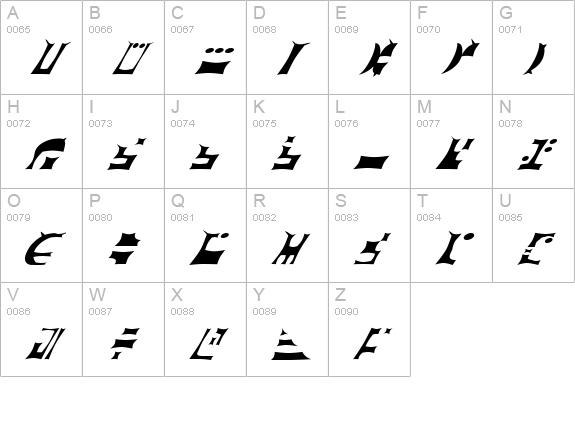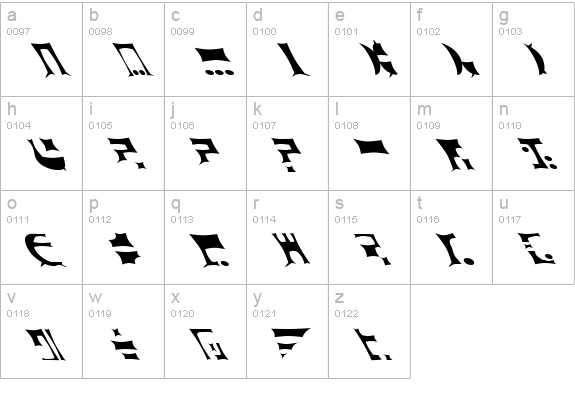
ST semi-canon Gothic Ferengi Font Details
The ST semi-canon Gothic Ferengi font is a unique and captivating typography that embodies the essence of the iconic Ferengi race from the Star Trek universe. With its bold and sharp design, this font captures the distinct Ferengi aesthetic, featuring intricate and intricate details that are reminiscent of their advanced technology and cunning nature. This font is the perfect choice for those seeking to add a touch of intergalactic charm to their design projects. Whether you're creating posters, logos, or digital artwork, the ST semi-canon Gothic Ferengi font will effortlessly transport your audience to the fascinating world of the Ferengi. What sets this font apart is its versatility and adaptability. It can be used to convey both a sense of authority and a touch of playfulness, making it suitable for a wide range of applications. The sharp edges and bold lines of the font create a strong visual impact, while the intricate details add a sense of depth and sophistication. One of the most remarkable aspects of the ST semi-canon Gothic Ferengi font is that it is freely available to download at FontsMarket.com. This means that you can easily access and utilize this captivating typography in your own projects without any cost. The font's availability for free ensures that it is accessible to all, allowing designers and enthusiasts alike to unleash their creativity without any limitations. So, whether you're a die-hard Star Trek fan looking to pay homage to the Ferengi culture, or a designer seeking a unique and captivating font, the ST semi-canon Gothic Ferengi font is a must-have addition to your collection. Download it for free at FontsMarket.com and embark on a journey to create visually stunning and captivating designs that are sure to leave a lasting impression.